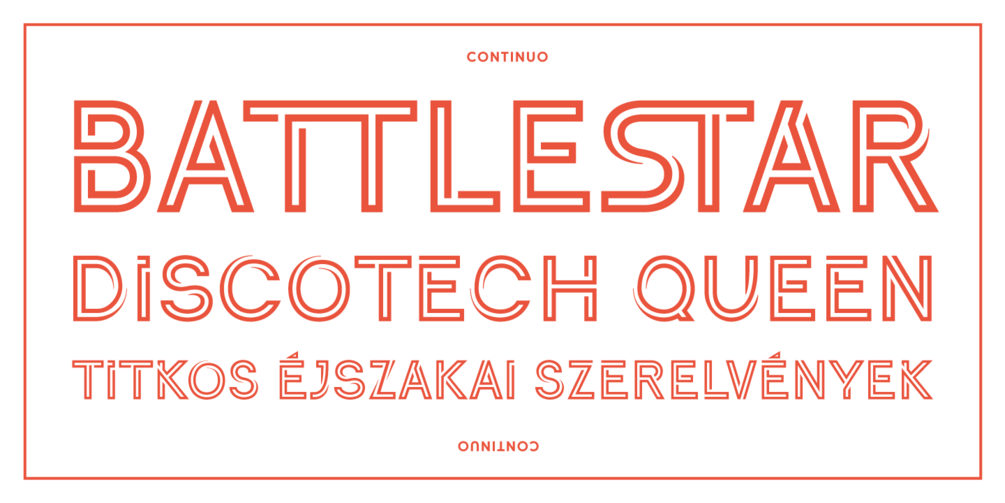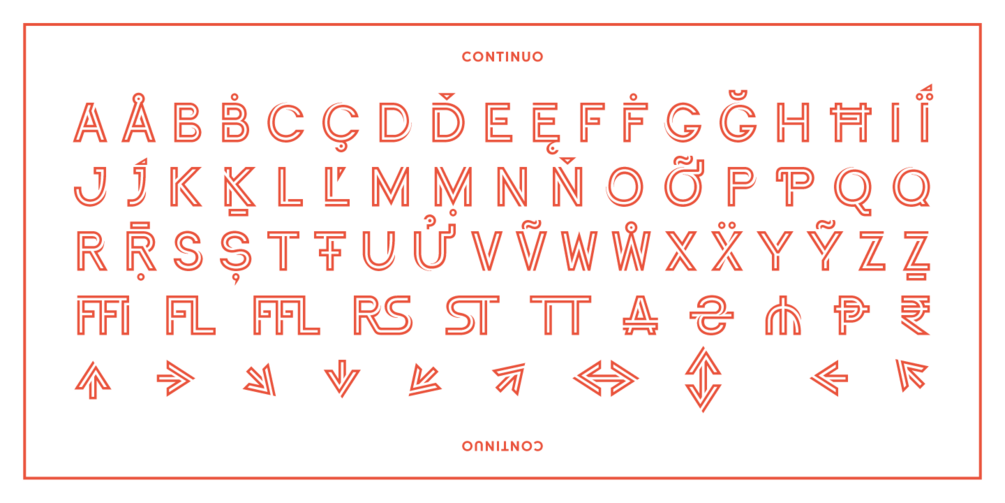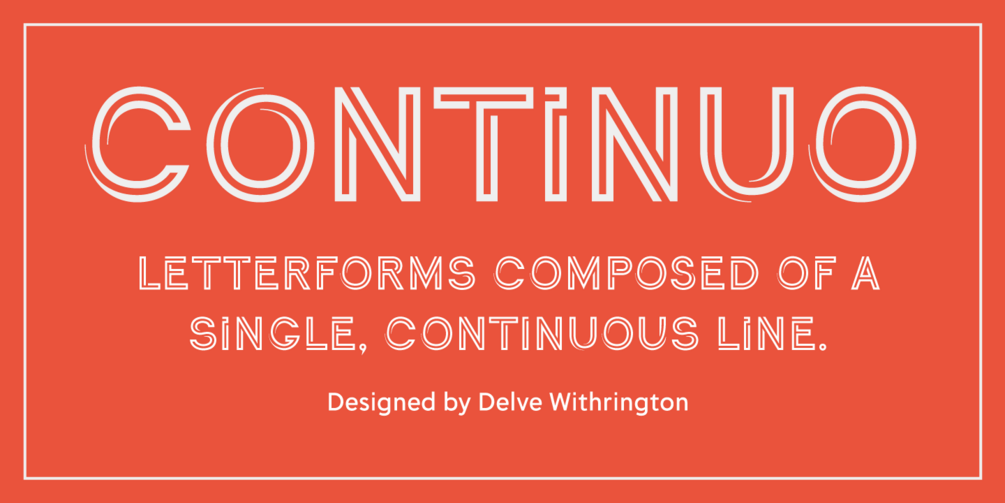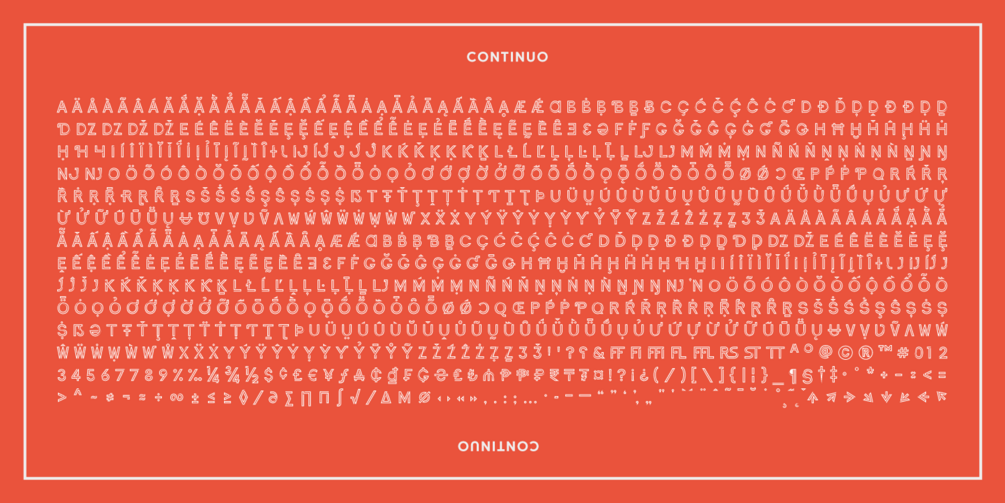
Continuo is a fascinating all-uppercase display typeface wherein each letterform is designed with a single, continuous line, sometimes even twisting over on itself. The name is derived from the musical term “Basso Continuo” meaning an almost constant bass line, an integral part of most musical melodies.
Continuo has alternate forms of letters A-Z available in the lowercase a-z and by extension those alternates are also present in the lowercase diacritics. The glyph repertoire of Continuo contains almost 900 glyphs, supporting 224 languages, including Vietnamese and multiple African languages. A handy set of arrows and additional international currency symbols were added as well.
As an inline display type, Continuo is ideal for headlines and most oversized applications and its unique appearance commands attention from viewers.